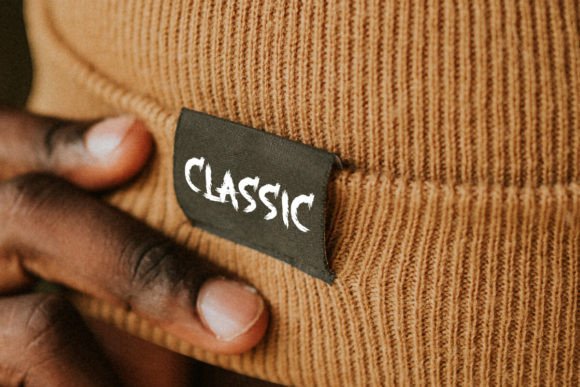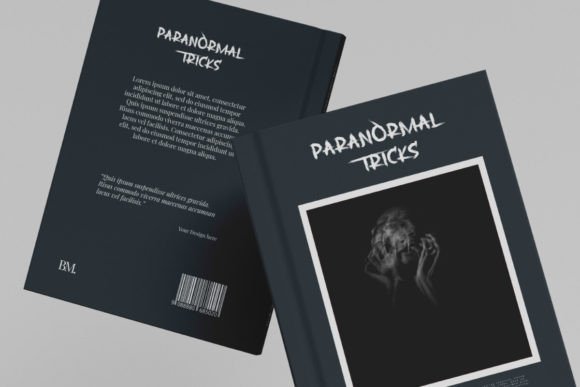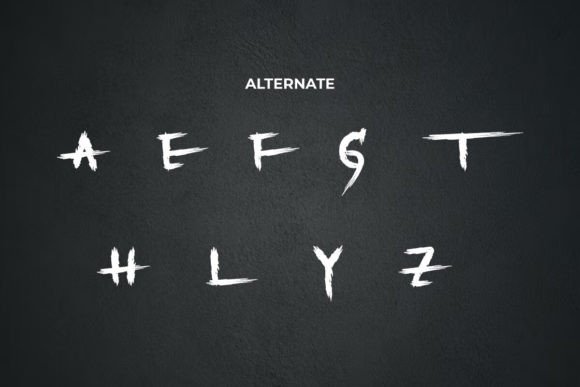
Introduction to Paranormal Tricks Font
Have you ever stared at a blank canvas, desperate for the perfect design element to bring your creative project to life? For many designers, finding that elusive ‘wow’ factor can be a challenge. But what if you could tap into a world of eerie, handwritten magic with just a few clicks? Enter Paranormal Tricks Font, a mysterious horror display font that’s about to revolutionize your design game.
This high-quality font boasts a special sketched texture that adds a spooky twist to any design. With its transparent background, you can easily layer it over your images or use it as a standalone element to create a haunting effect. Whether you’re working on a horror movie poster, a dark fashion campaign, or a spooky accessory design, Paranormal Tricks Font is the perfect addition to your design resource arsenal.
- Features a unique blend of spooky and mystical elements, ideal for Halloween-themed designs, horror movies, or paranormal-themed projects.
Honest Review: Paranormal Tricks Font
As a designer, I’m always on the lookout for high-quality design resources to elevate my creative projects. Recently, I came across the Paranormal Tricks Font, and I was excited to give it a try.
First impressions were good – the font is quite unique and would be perfect for a spooky or supernatural-themed design. I was also impressed by the transparent background, which made it easy to layer and combine with other design elements.
- Unique and creative design
- High-quality font that’s perfect for spooky or supernatural themes
- Transparent background for easy layering and combining with other design elements
- Only available in a limited number of font styles
- Not suitable for corporate or business-themed designs
Overall, I was impressed by the Paranormal Tricks Font, but it’s essential to keep in mind its limitations. If you’re working on a spooky or supernatural-themed design, this font is definitely worth checking out.
The Paranormal Tricks Font is a unique and captivating design resource that adds an eerie twist to any creative project. With its high quality and transparent background, this font is perfect for designers looking to create a spooky or mysterious atmosphere.
To get the most out of the Paranormal Tricks Font, use it in combination with other design elements that create a spooky or mysterious atmosphere. Experiment with different font sizes, colors, and backgrounds to achieve the desired effect.
The Paranormal Tricks Font is commonly used in design projects that require a spooky or mysterious atmosphere, such as horror movie posters, haunted house invitations, and supernatural-themed websites.